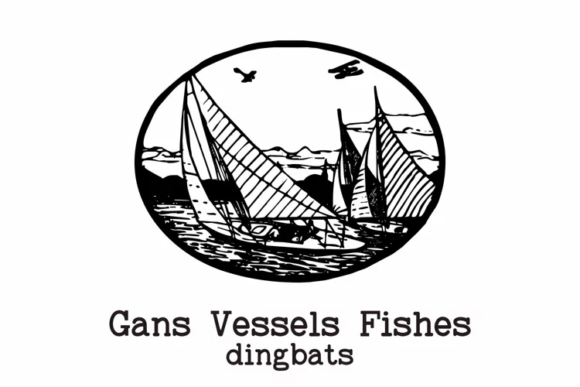
Introducing Gans Vessels Fishes Font, the ultimate collection of nautical and sea-inspired dingbats! Crafted by the creative minds at Intellecta Design, this font family is a captivating treasure trove for all boat enthusiasts and lovers of the deep blue.
With Gans Vessels Fishes Font, your designs will sail to new heights as you navigate the world of typography. This dingbat collection is specifically tailored for those seeking the best fonts for boats, allowing you to effortlessly infuse your designs with a touch of maritime charm and elegance.
Dive into a world of creativity with Gans Vessels Fishes Font, where each character is meticulously crafted to embody the spirit of the sea. From graceful sailboats to enchanting seahorses, this font family offers an extensive range of captivating visuals that will instantly transport your audience to the mesmerizing realm of oceanic wonders.
Unleash your imagination as you adorn your designs with these eye-catching dingbats. Whether you're designing a logo for a yacht club, creating stunning invitations for a beachside wedding, or simply adding a touch of coastal flair to your personal projects, Gans Vessels Fishes Font has got you covered.
Not only does this font family offer a visually stunning collection of dingbats, but it also brings a wave of versatility to your creative endeavors. Its seamless integration with various design software ensures a smooth sailing experience, allowing you to effortlessly incorporate these captivating visuals into your projects.
Experience the power of Gans Vessels Fishes Font as it breathes life into your designs, evoking feelings of wanderlust, adventure, and the serenity of the open sea. Embrace the beauty of the maritime world and let your creativity set sail with this remarkable collection.